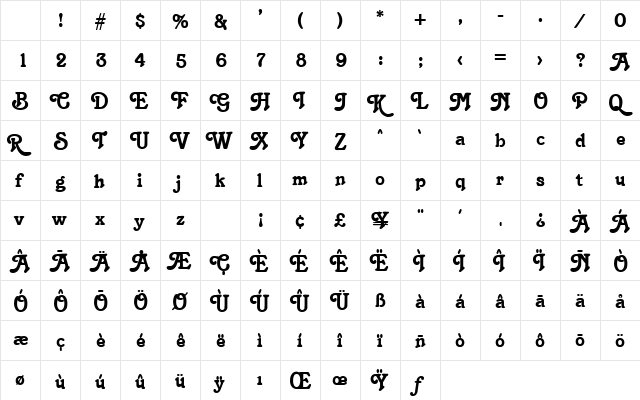
Buenosaires Regular
Design Context for Buenosaires
Buenosaires is a composed and adaptable typeface that performs quietly and consistently across a wide range of design contexts.